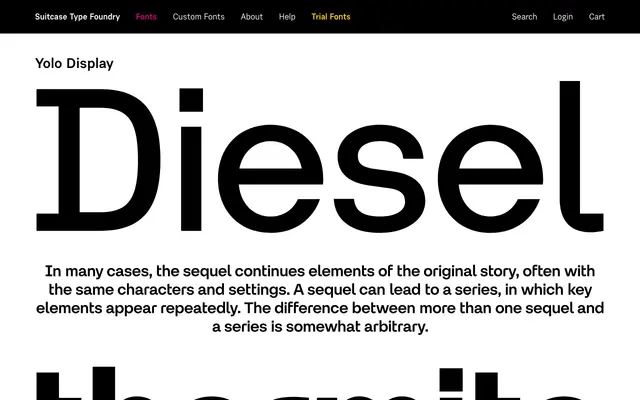
The display-optimised member of Suitcase Type Foundry's Yolo family, intended for headline and large-scale use alongside companion body and text cuts.
Part of a four-subfamily system that spans Display, Text, Body and Info, each cut tuned for its intended size range. The Display variant offers 10 fonts, suggesting a full weight range with italics for expressive headline work. The tiered family structure indicates careful attention to optical performance across different typesetting contexts.
Classified as a display typeface given its name explicitly includes 'Display', suggesting it is optimised for large sizes and headline use, part of a broader Yolo family that includes body and text variants.